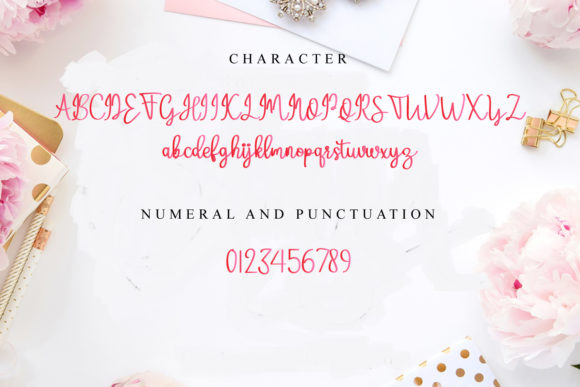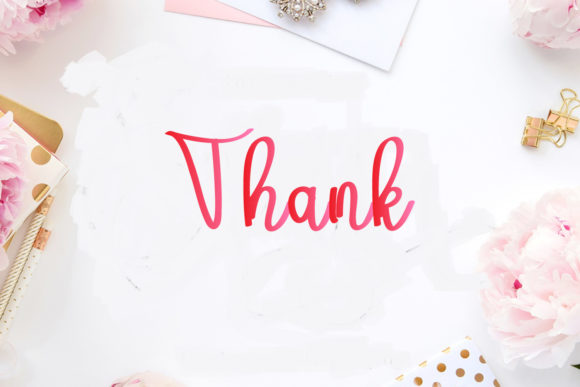
Introduction to Kong Kalikong Font
Kong Kalikong is a cute and casual handwritten font with an incredibly friendly feel.
It will look outstanding in any context, whether itโ€™s being used on busy backgrounds or as a standalone headline .
Key Features of Kong Kalikong Font
Why Choose Kong Kalikong Font?
Kong Kalikong Font offers exceptional quality and versatility, making it a valuable addition to your design toolkit. Whether you’re creating for personal projects or commercial use, Kong Kalikong Font delivers professional results.